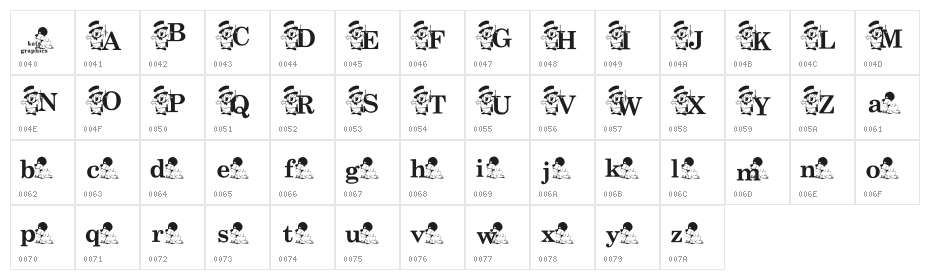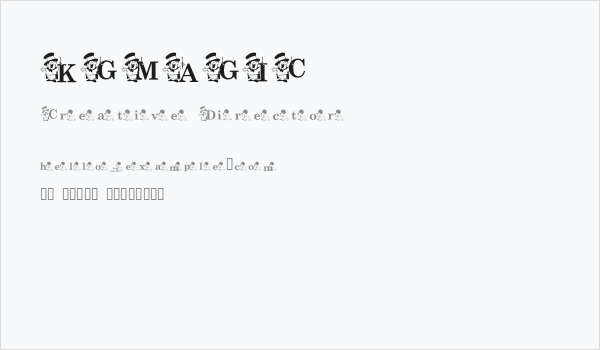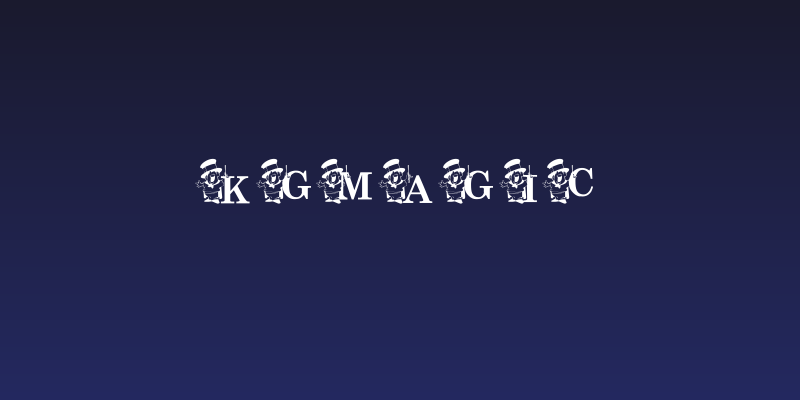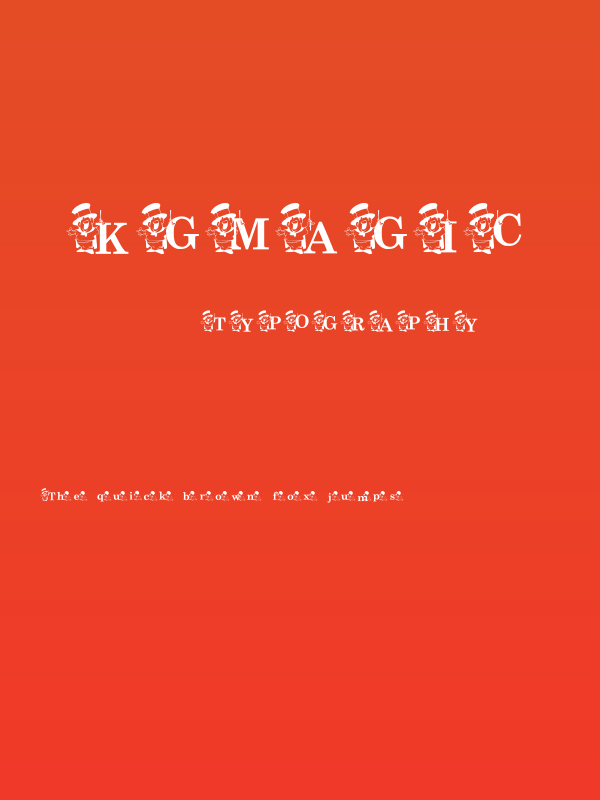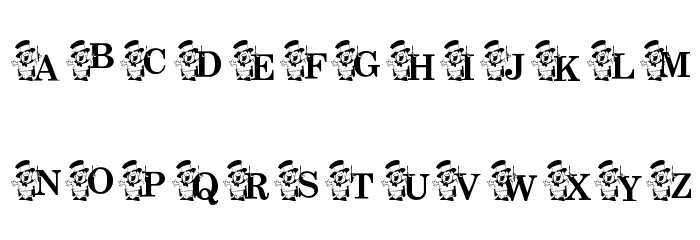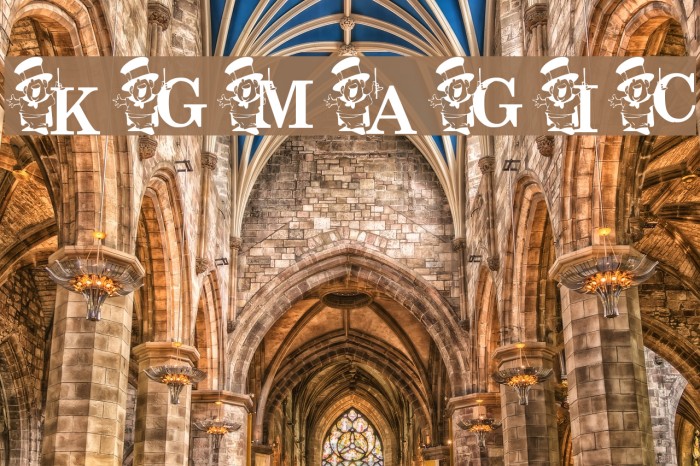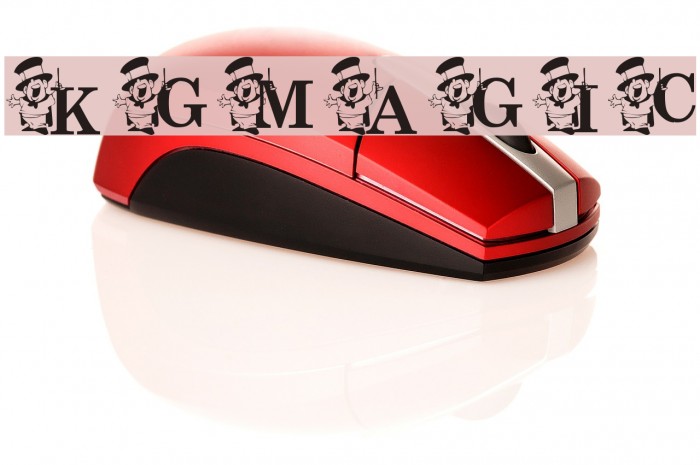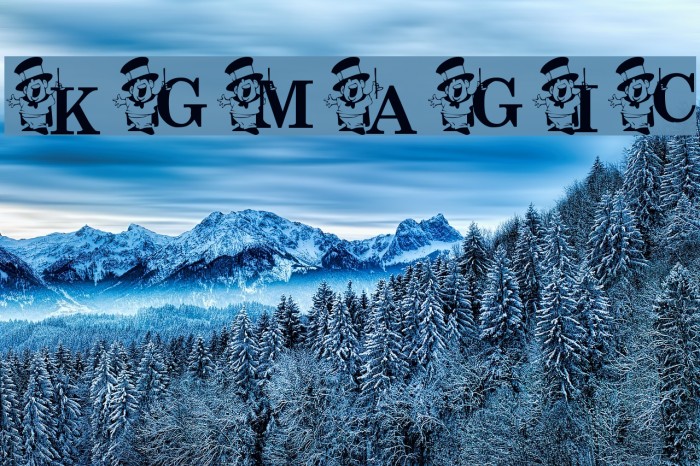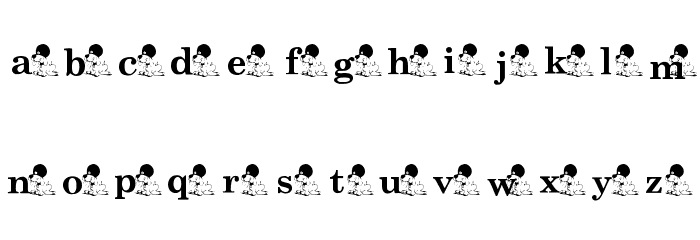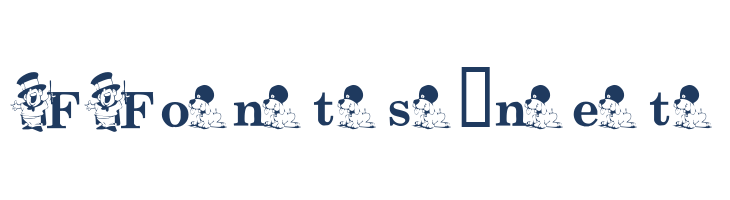
KGMAGIC Font
KGMAGIC Description
This playful and whimsical font features each letter adorned with a charming character dressed in a festive outfit, adding a delightful and cheerful touch to the text. The characters are integrated into the design, creating a unique and eye-catching appearance. The font maintains a balance between decorative elements and readability, making it suitable for creative and fun projects. The overall style is lively and engaging, perfect for capturing attention and conveying a sense of joy and celebration.
| Proposed Projects | Ideal for holiday cards, children's books, party invitations, and festive event promotions. |